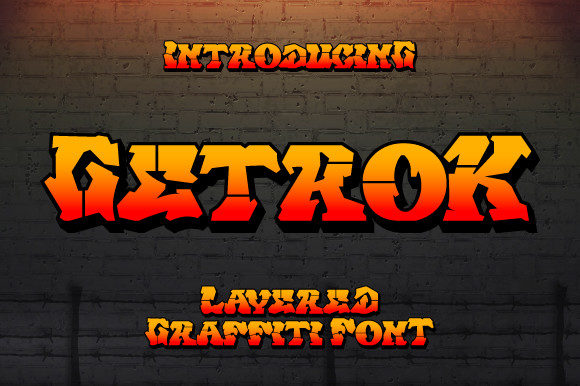
Getrok: Where Boldness and Style Intersect for Your Design Masterpieces
In the realm of design, where creativity flows like a river and expression dances on every stroke, there exists a font that captures the essence of urban grit and artistic flair like no other – Getrok. A display font born from the fusion of wild style and contemporary aesthetics, Getrok is a visual symphony that awaits your design touch to unleash its full potential. Its unique character dances across the canvas, adding an edge of untamed energy and captivating appeal to your projects, leaving an indelible mark on the beholder's senses.
With Getrok as your creative ally, transform ordinary designs into captivating expressions. Envision posters that scream with urban vitality, product packaging that exudes a rebellious spirit, and merchandise that carries the raw energy of street art. Let Getrok's bold strokes and dynamic curves ignite your designs, turning them into visual masterpieces that command attention and leave a lasting impression.
Step into the world of Getrok and witness the birth of designs that resonate with raw emotion and untamed creativity. Unleash the power of expression and let your projects speak volumes through the unique language of Getrok. Dare to be bold, embrace the unconventional, and watch as your designs take on a life of their own, captivating audiences with their magnetic allure.
Getrok, a creation of the renowned Prioritype, is more than just a font; it's a gateway to a world where design transcends boundaries and creativity knows no limits. It's an invitation to break free from the mundane and embark on a journey of visual exploration, where every stroke tells a story and every design carries a piece of your soul.
With Getrok by your side, you'll discover a font that effortlessly blends the ruggedness of the streets with the sophistication of modern design. It's a font that speaks to the rebels, the dreamers, and the artists who dare to push boundaries and leave their mark on the world. So, seize the opportunity to harness the power of Getrok, let your creativity run wild, and watch as your designs evolve into unforgettable works of art.